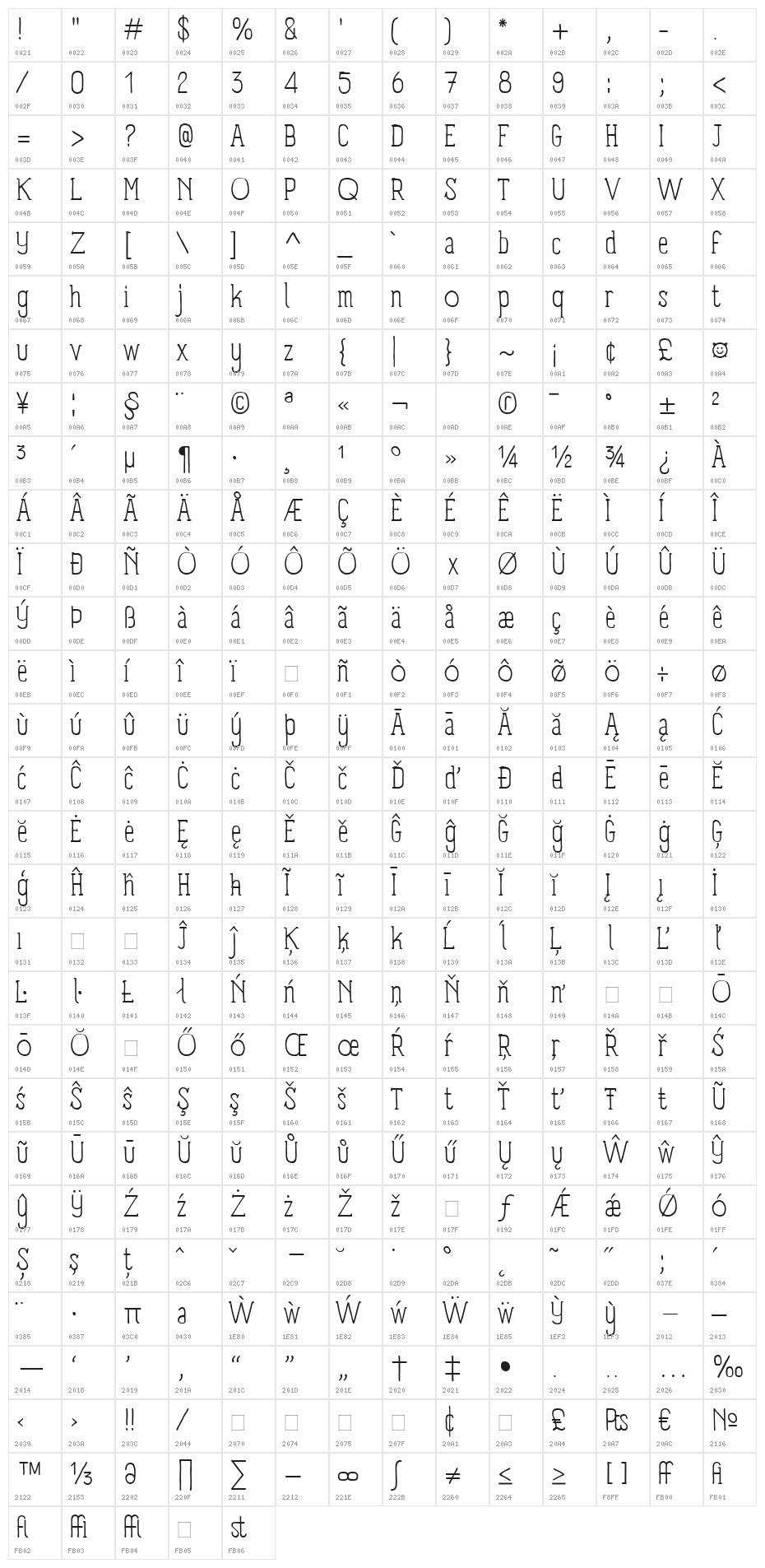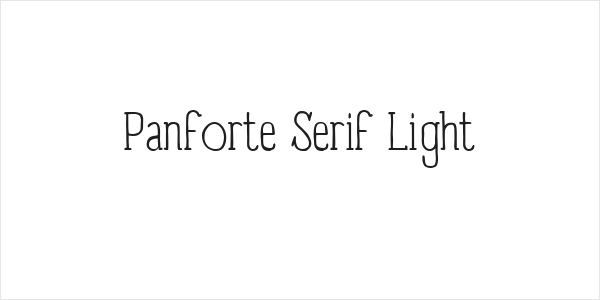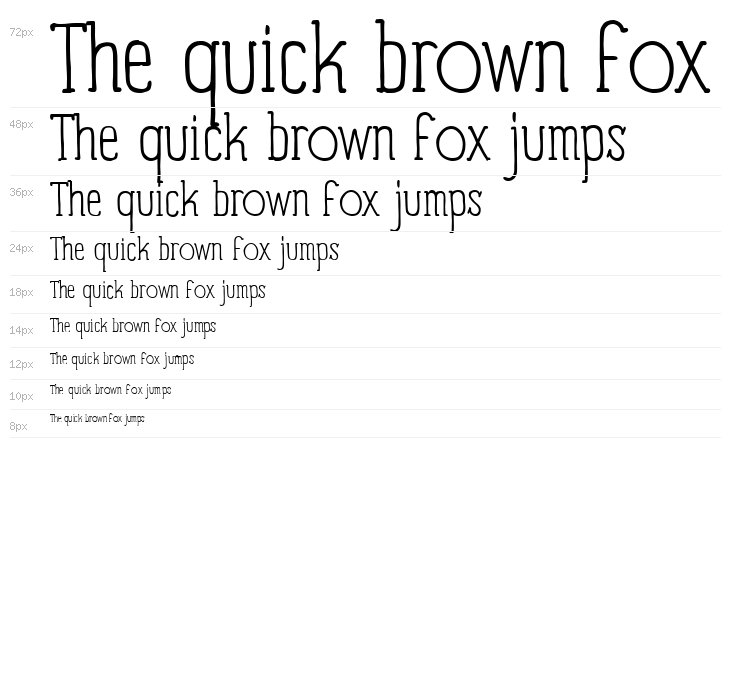
Panforte Serif Light Font
Panforte Serif Light Description
This font features a distinctive serif style with a light weight, offering a modern twist on classic serif elements. The characters are elegantly elongated, with a slightly condensed width that gives it a refined and sophisticated appearance. The serifs are subtle yet pronounced enough to maintain readability, making it suitable for both digital and print media. The numbers and special characters are designed to complement the alphabet, maintaining a cohesive look across all glyphs. The overall design is clean and uncluttered, providing a versatile option for various design needs.